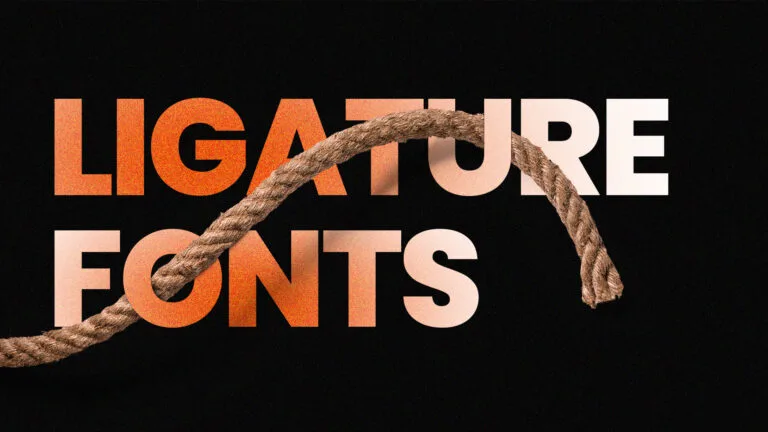
When it comes to creating memorable logos, sleek branding, or modern editorial layouts, ligature fonts offer a perfect blend of style and sophistication. Ligatures—special character combinations where two or more letters are merged into a single glyph—add a unique aesthetic touch that elevates your typography game.
In this article, we’ll explore the best ligature fonts for graphic designers, each carefully curated to meet the needs of modern creatives. Whether you’re designing for luxury brands, fashion labels, or high-end websites, these fonts bring elegance, personality, and refinement to your work.
Let’s dive into the top ligature fonts for modern design.
Equila – Refined Elegance with Fluid Ligatures
Equila is a stunning serif font that combines modern luxury with classic form. Its elegant ligatures flow seamlessly, making it perfect for branding and editorial design. The stylish letter connections give it a high-fashion feel that’s ideal for designers working with premium or lifestyle brands.
Best for: Logo design, magazine titles, and luxury packaging
Why designers love it: Elegant ligatures, smooth transitions, and timeless appeal
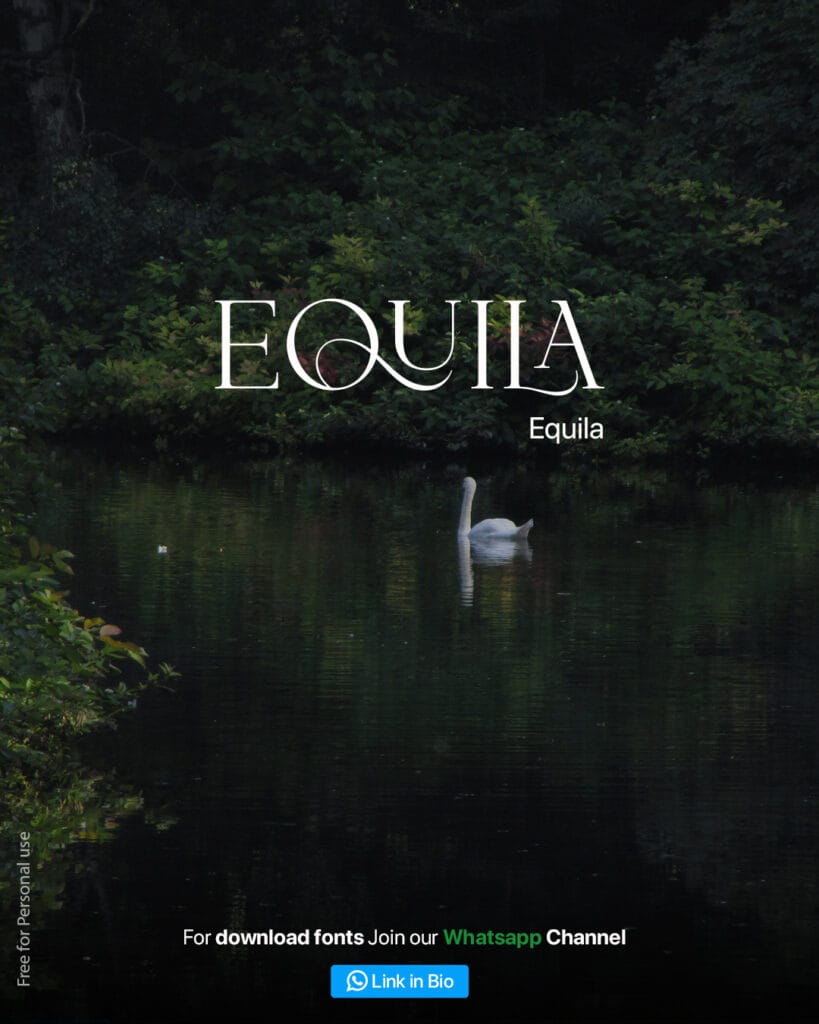
Avelire – Clean, Modern, and Sophisticated
Avelire stands out with its clean ligature forms and minimalist style. Its subtle curves and clever glyph pairings make it a great option for minimalist design projects. The font maintains readability while still providing artistic value.
Best for: Website headers, portfolio branding, editorial layouts
Why designers love it: Modern simplicity with a unique typographic twist
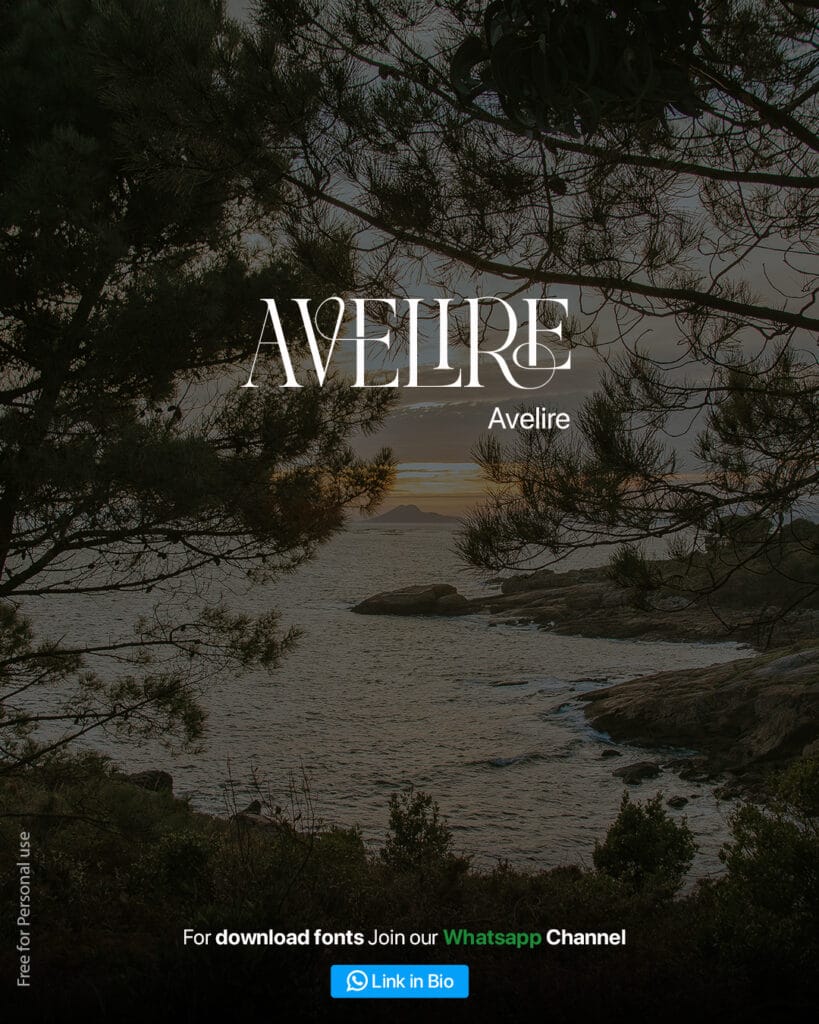
Blancmaira – For a Touch of Class and Creativity
Blancmaira is the kind of font that catches your eye instantly. With bold, decorative ligatures and a soft yet confident structure, it’s the ideal font for creative ligatures in logos and fashion-forward branding.
Best for: Boutique brands, fashion logos, and packaging
Why designers love it: High-impact design with balanced ornamentation
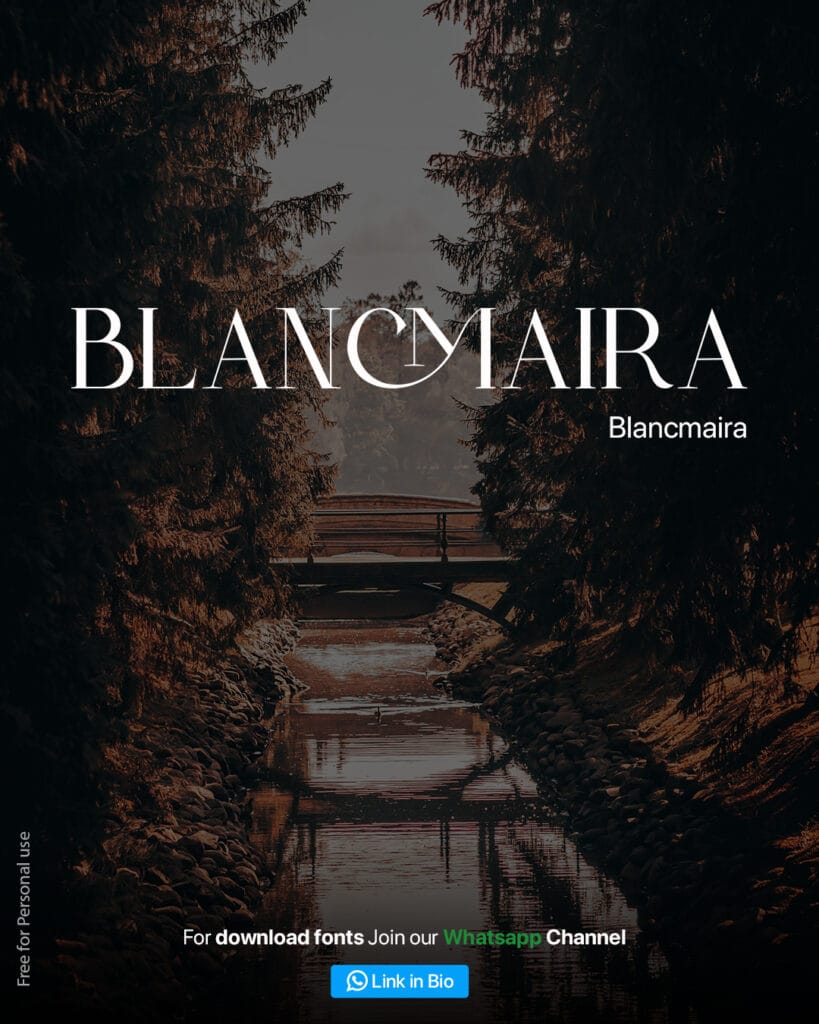
Derona – Vintage Meets Modern
Derona strikes a perfect balance between vintage charm and modern sophistication. Its ligatures are smartly crafted to bring artistic flair to high-end branding without sacrificing readability. It’s a top choice for stylish ligature fonts for branding projects.
Best for: Editorial spreads, book covers, and product packaging
Why designers love it: Retro feel with a clean, updated structure
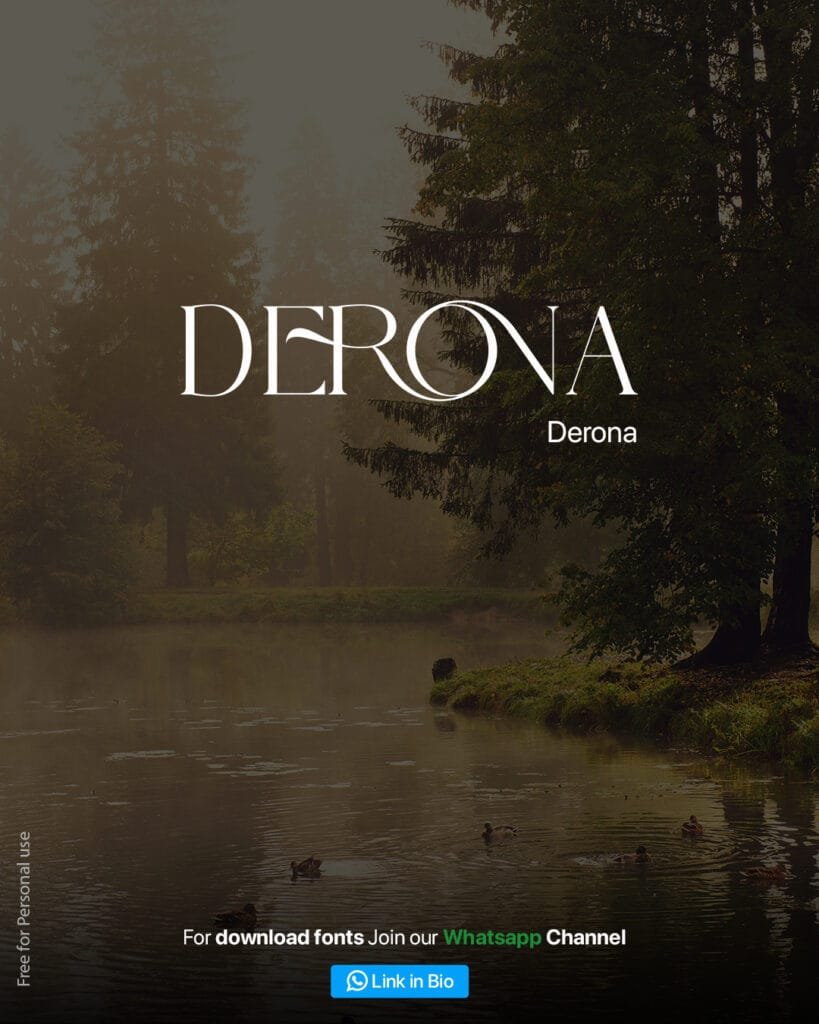
Xerina – Sharp, Sleek, and Sophisticated
Xerina is a bold font with tight, well-structured ligatures that make it ideal for professional design fonts. Its sharp angles and confident curves create a visual rhythm that works well across digital and print media.
Best for: Tech branding, portfolios, headlines
Why designers love it: Strong personality with balanced letter spacing
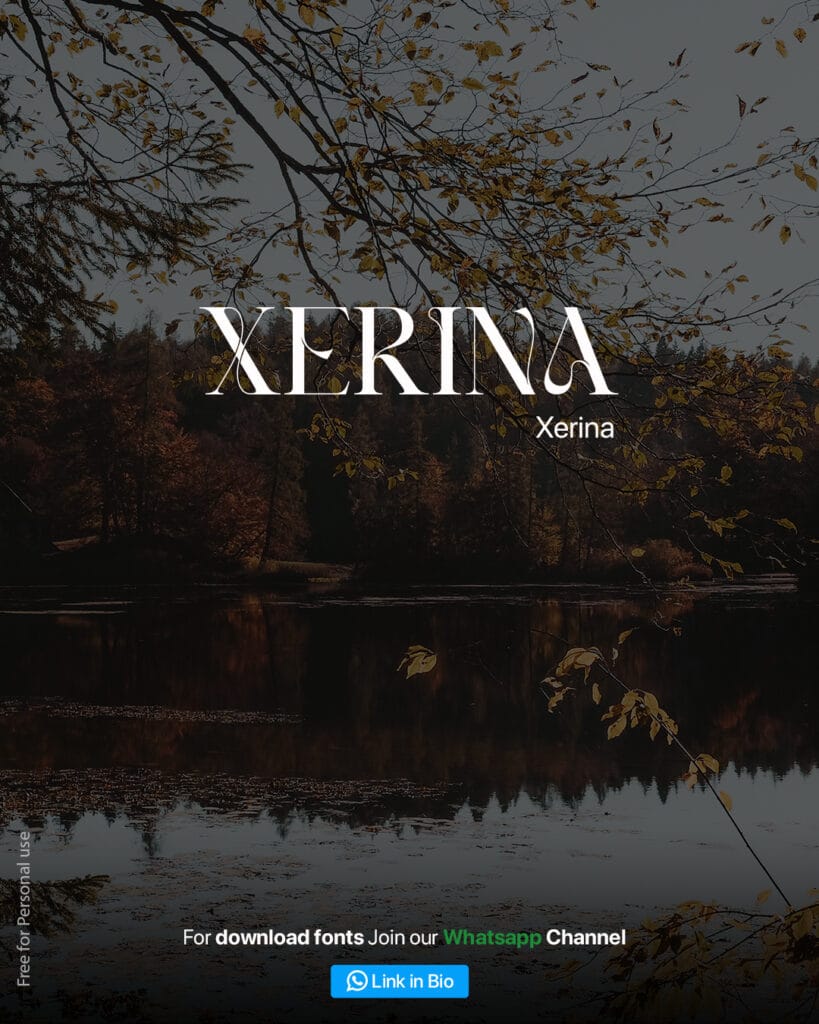
Velista – Soft Curves and Signature Style
Velista offers a smooth, handwritten-inspired serif experience with thoughtfully designed ligatures that add a personal touch. It’s perfect for designers looking for free ligature fonts for creatives that don’t compromise on quality.
Best for: Wedding branding, social media graphics, logos
Why designers love it: Warm and personal with beautiful glyph pairings